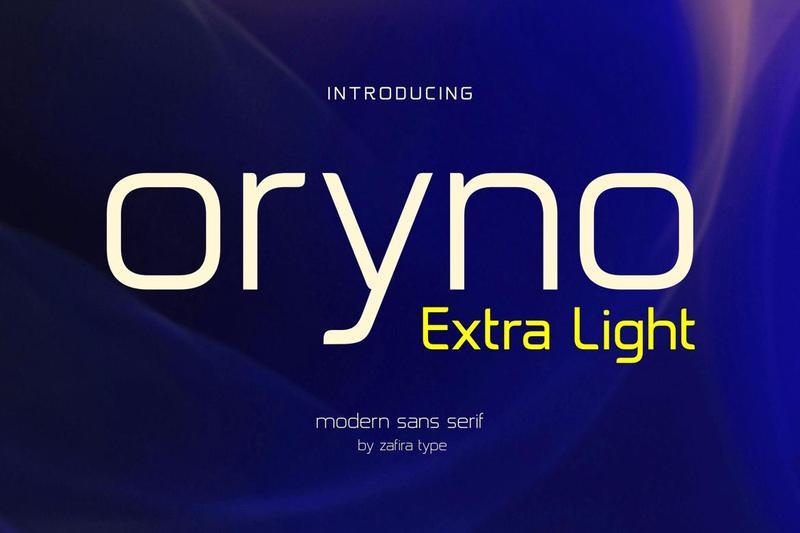
Oryno Extra Light is a modern sans serif typeface designed to deliver clarity and versatility across a wide range of design applications. With its clean lines, balanced proportions, and contemporary aesthetic, Oryno Extra Light is an ideal choice for various creative projects.
Perfect for branding, editorial design, user interfaces (UI), presentations, packaging, and both digital and print media, Oryno Extra Light brings a professional, refined, and highly readable appearance to any design. Its modern and adaptable character allows it to perform seamlessly in a variety of visual contexts.